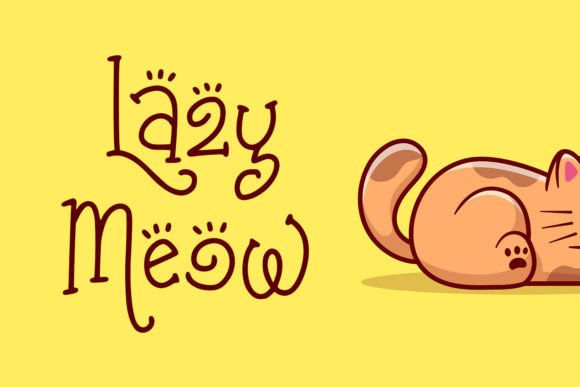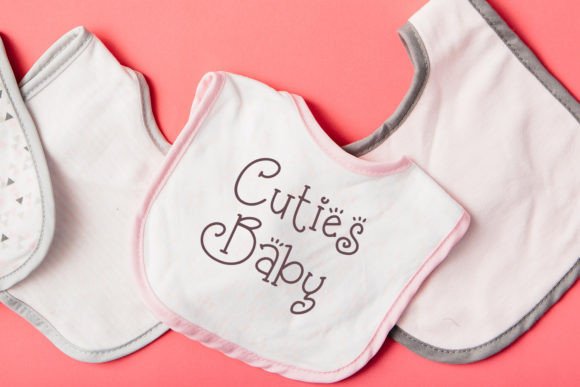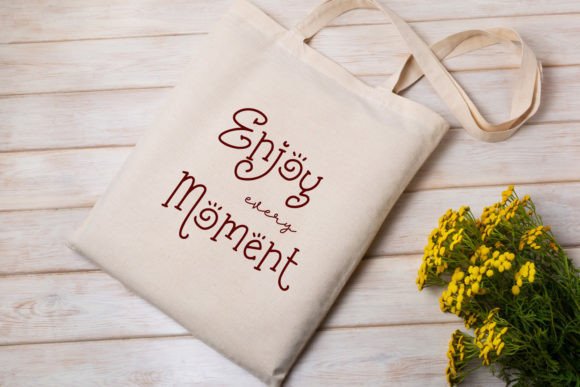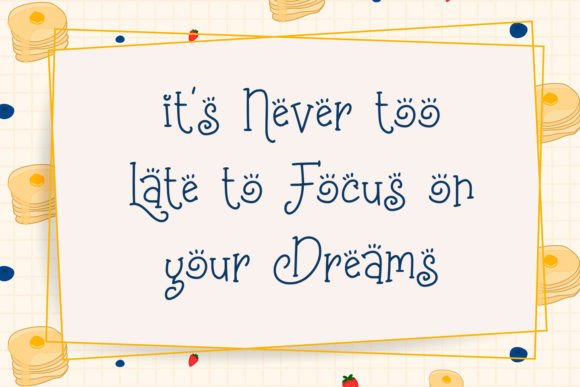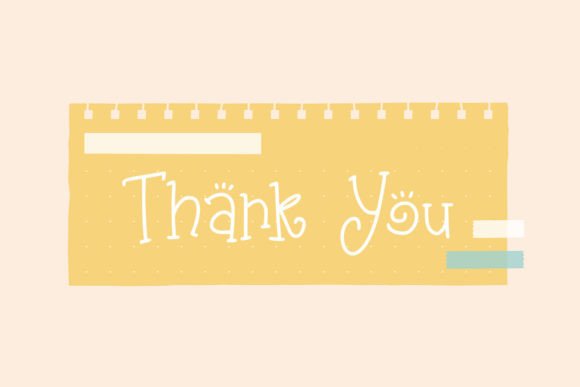
Bintang Langit Font: Add a Touch of Whimsy to Your Designs
Are you looking for a font that can add a dash of personality and playfulness to your designs? Look no further than Bintang Langit, a sweet and extremely friendly handwritten font that’s perfect for creating joyful and eye-catching designs. In this article, we’ll take a closer look at Bintang Langit and explore its features, uses, and benefits for designers and crafters.
What is Bintang Langit Font?
Bintang Langit is a beautifully crafted handwritten font that’s designed to bring a smile to your face. Its whimsical swirly characters are carefully crafted to add an extra touch of cheerfulness and joy to any design you wish to create. Whether you’re working on a branding project, a children’s book, or a greeting card, Bintang Langit is the perfect choice for adding a personal and playful touch.
Key Features of Bintang Langit Font
- Handwritten style: Bintang Langit is a handwritten font that’s designed to look friendly and approachable.
- Whimsical swirly characters: The font features whimsical swirly characters that add a touch of playfulness to any design.
- Easy to read: Despite its playful style, Bintang Langit is easy to read and works well for both headings and body text.
- Multilingual support: The font supports multiple languages, making it a great choice for designers working on international projects.
Uses of Bintang Langit Font
Bintang Langit is a versatile font that can be used in a variety of design projects, including:
- Branding and packaging: Add a personal touch to your brand with Bintang Langit’s playful and friendly style.
- Children’s books and educational materials: The font’s whimsical style makes it perfect for children’s books, educational materials, and other kid-friendly projects.
- Greeting cards and invitations: Bintang Langit is a great choice for creating joyful and eye-catching greeting cards and invitations.
- Digital marketing materials: Use Bintang Langit to add a touch of personality to your digital marketing materials, such as social media graphics and email newsletters.
Benefits of Using Bintang Langit Font
So why choose Bintang Langit for your design projects? Here are just a few benefits of using this lovely font:
- Adds a personal touch: Bintang Langit’s handwritten style adds a personal touch to any design, making it perfect for brands and designers who want to stand out.
- Increases engagement: The font’s playful and whimsical style can help increase engagement and make your designs more memorable.
- High-quality design: The font is designed to high-quality standards, ensuring that it looks great in any design.
Tips for Using Bintang Langit Font
Here are a few tips for getting the most out of Bintang Langit:
- Use it for headings and titles: Bintang Langit’s playful style makes it perfect for headings and titles.
- Pair it with a sans-serif font: Pair Bintang Langit with a sans-serif font for body text to create a nice contrast.
- Experiment with colors: Bintang Langit looks great in a variety of colors, so don’t be afraid to experiment and find the perfect hue for your design.
Bintang Langit is a sweet and extremely friendly handwritten font that’s perfect for adding a touch of whimsy to your designs. With its playful and swirly characters, this font is sure to bring a smile to your face and make your designs more engaging and memorable. Whether you’re a designer, crafter, or DIY enthusiast, Bintang Langit is a great choice for any project that needs a personal and playful touch.